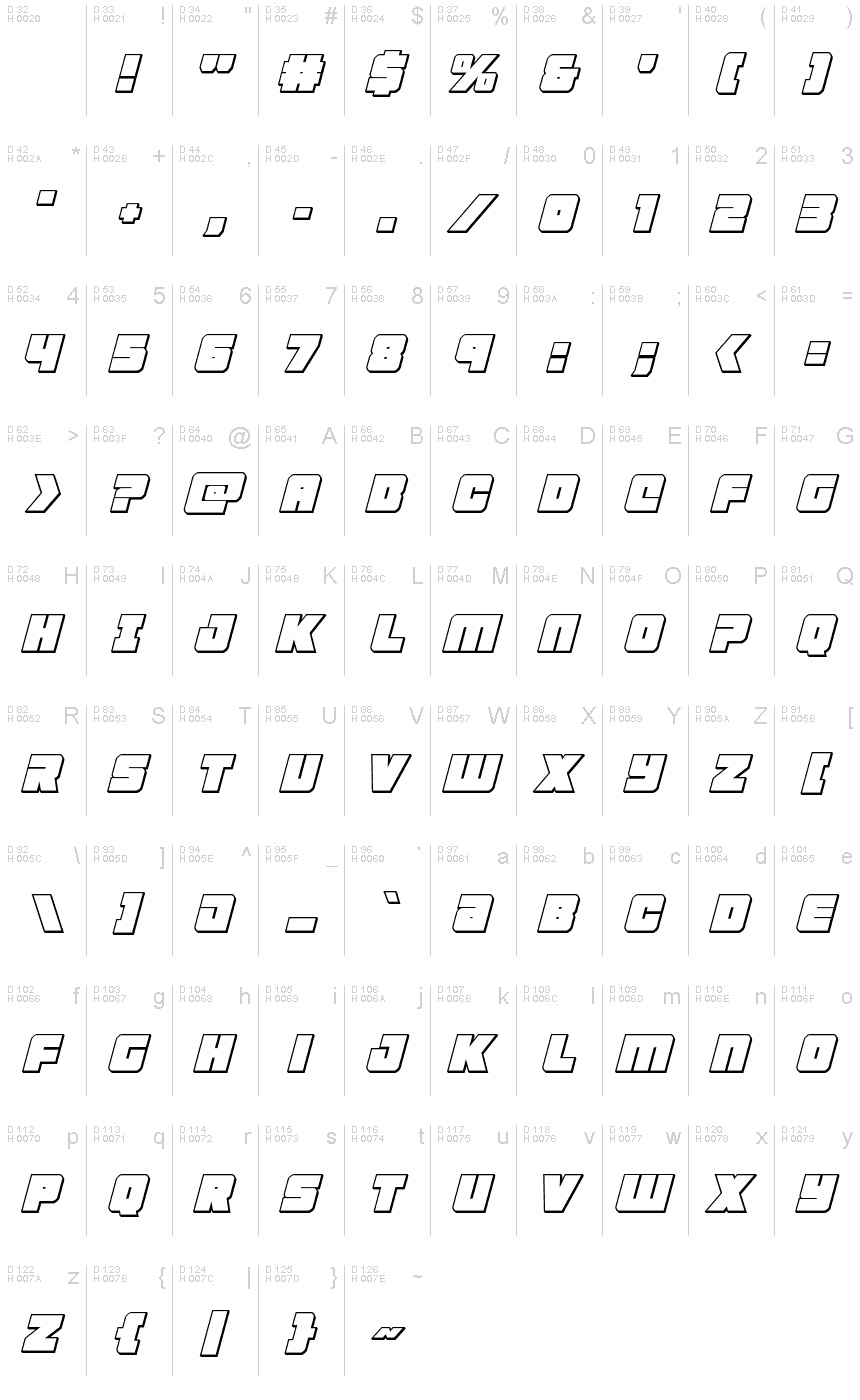
4ce 3D Italic
The 4ce 3D Italic font by Iconian Fonts is the perfect choice for any project in need of a bold and futuristic display font. Its ultra-bold weight and expanded width make it stand out, while the 3d techno style adds a unique touch of depth to your designs. This font is ideal for projects such as gaming logos, product packaging, and sci-fi movie titles. With its sleek and modern design, the 4ce 3D Italic font is sure to catch the eye of any viewer. So why settle for ordinary fonts when you can elevate your designs with this stunning typeface?